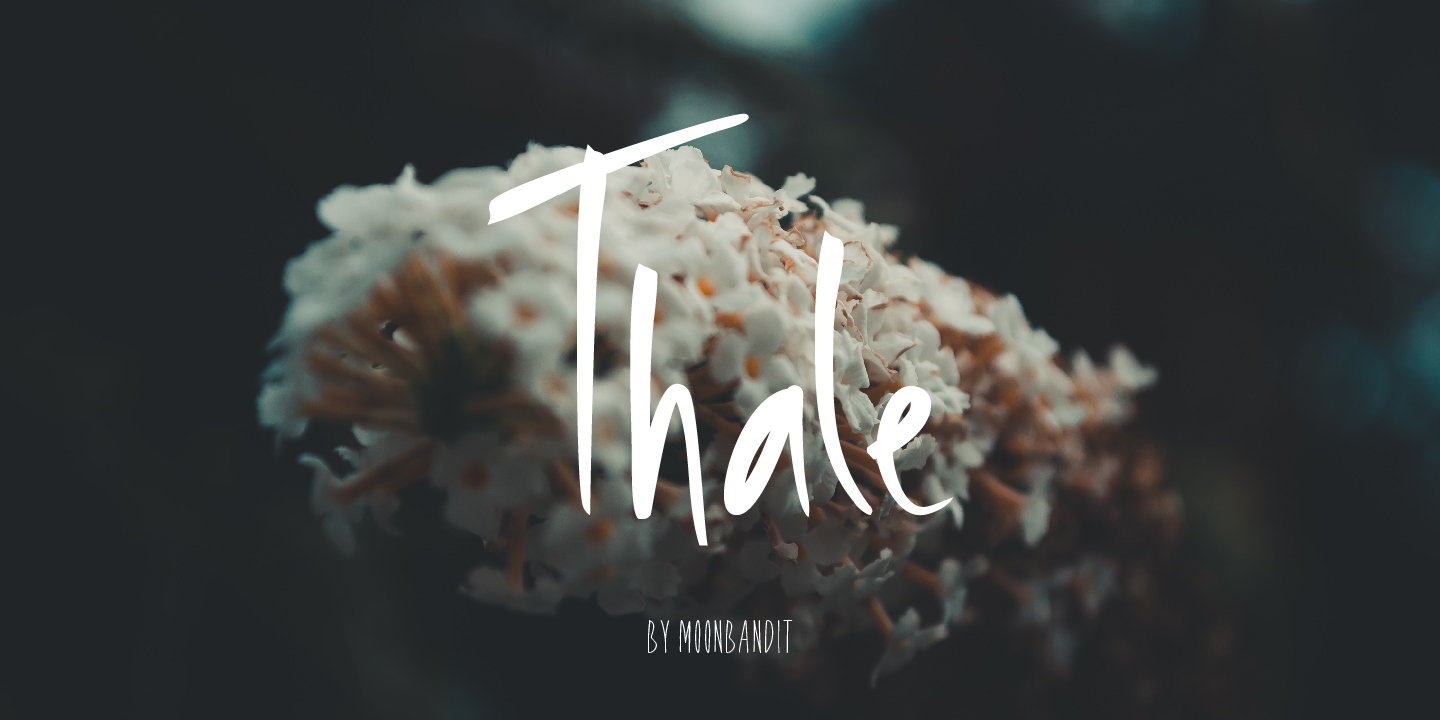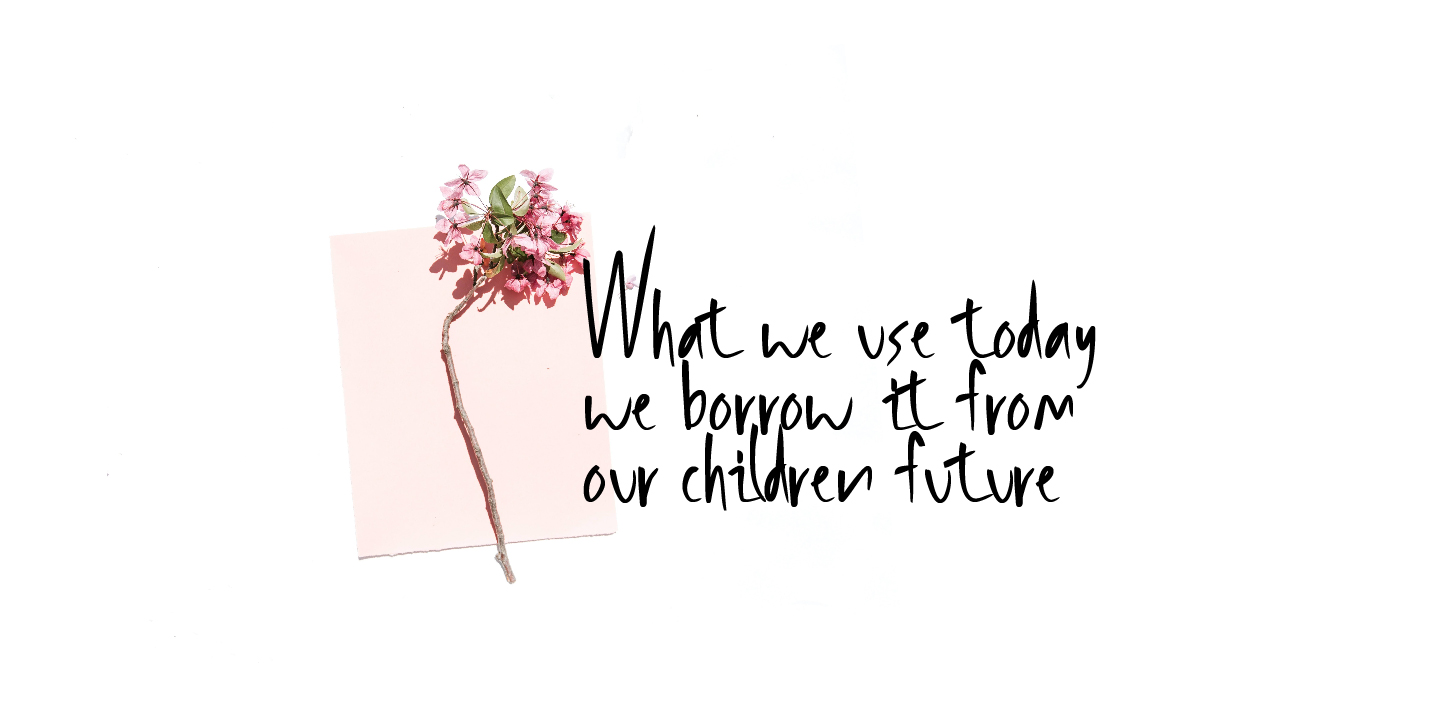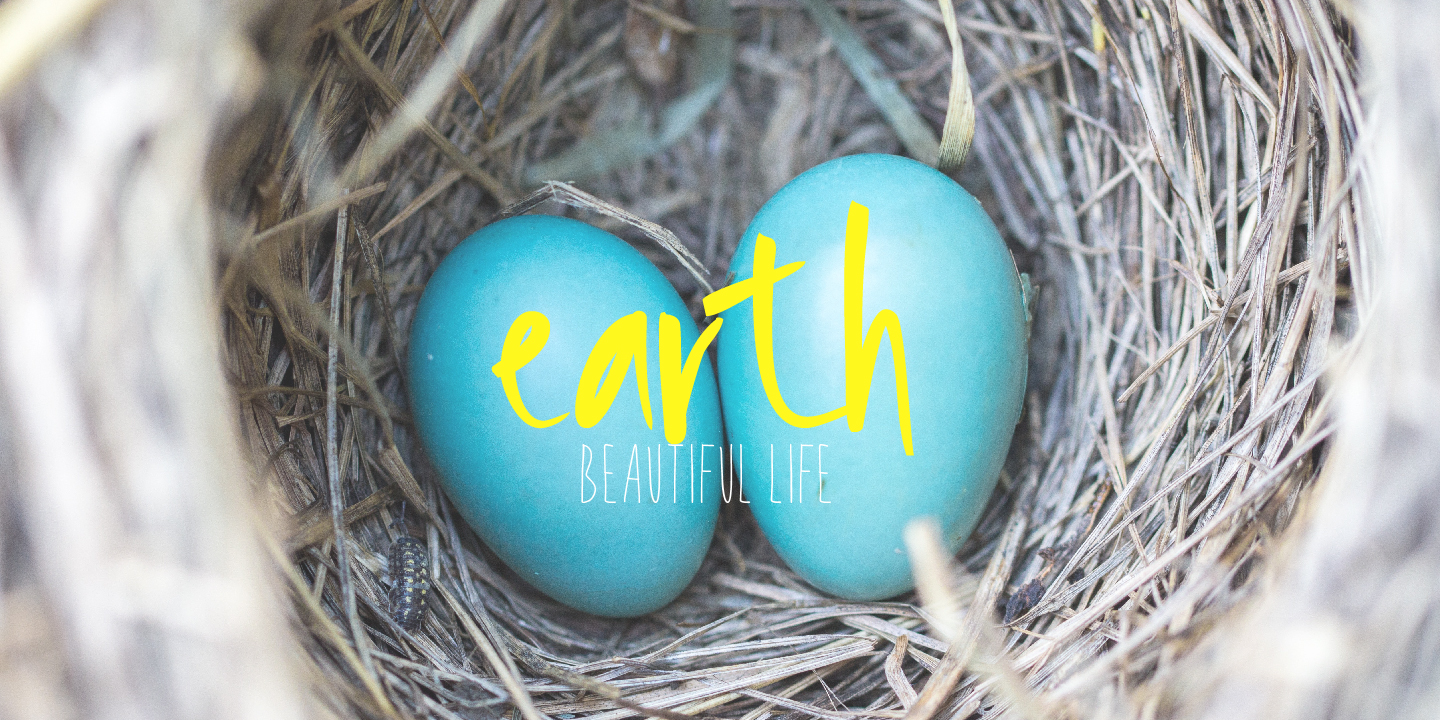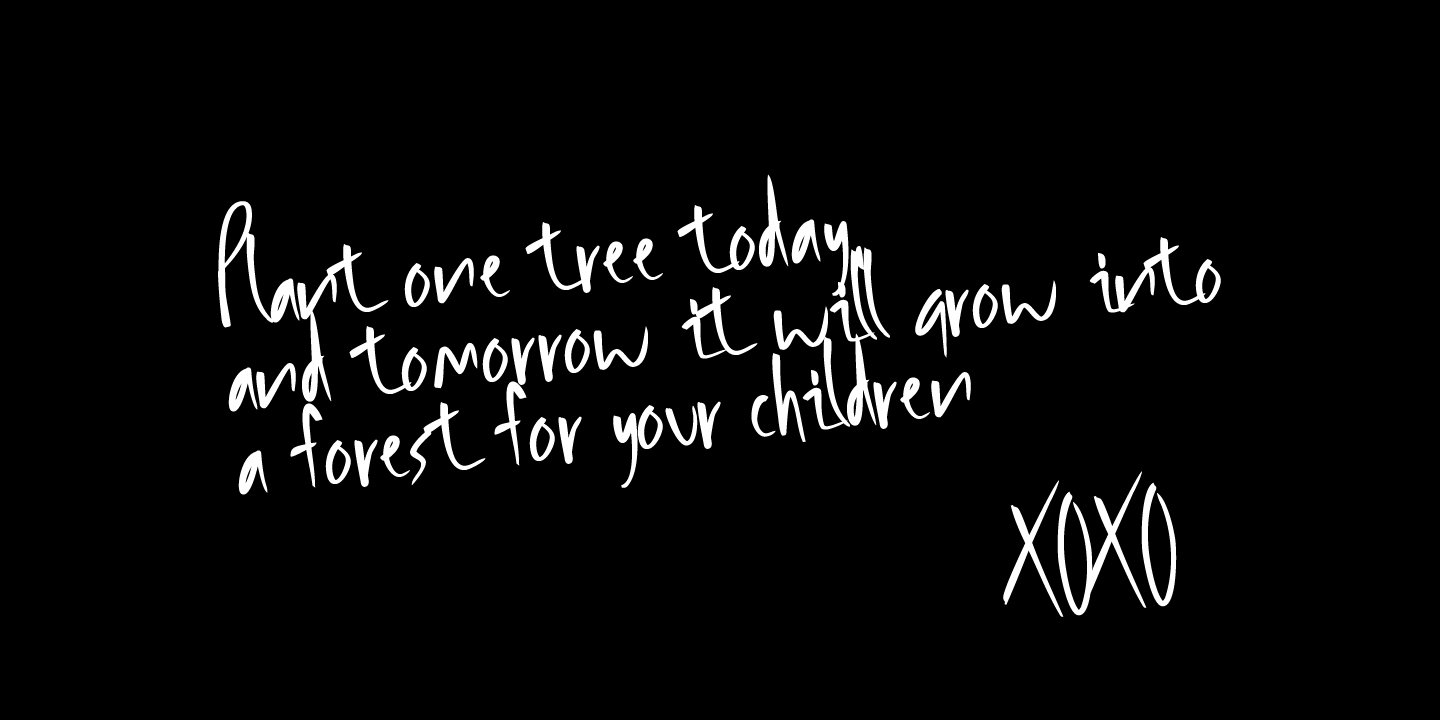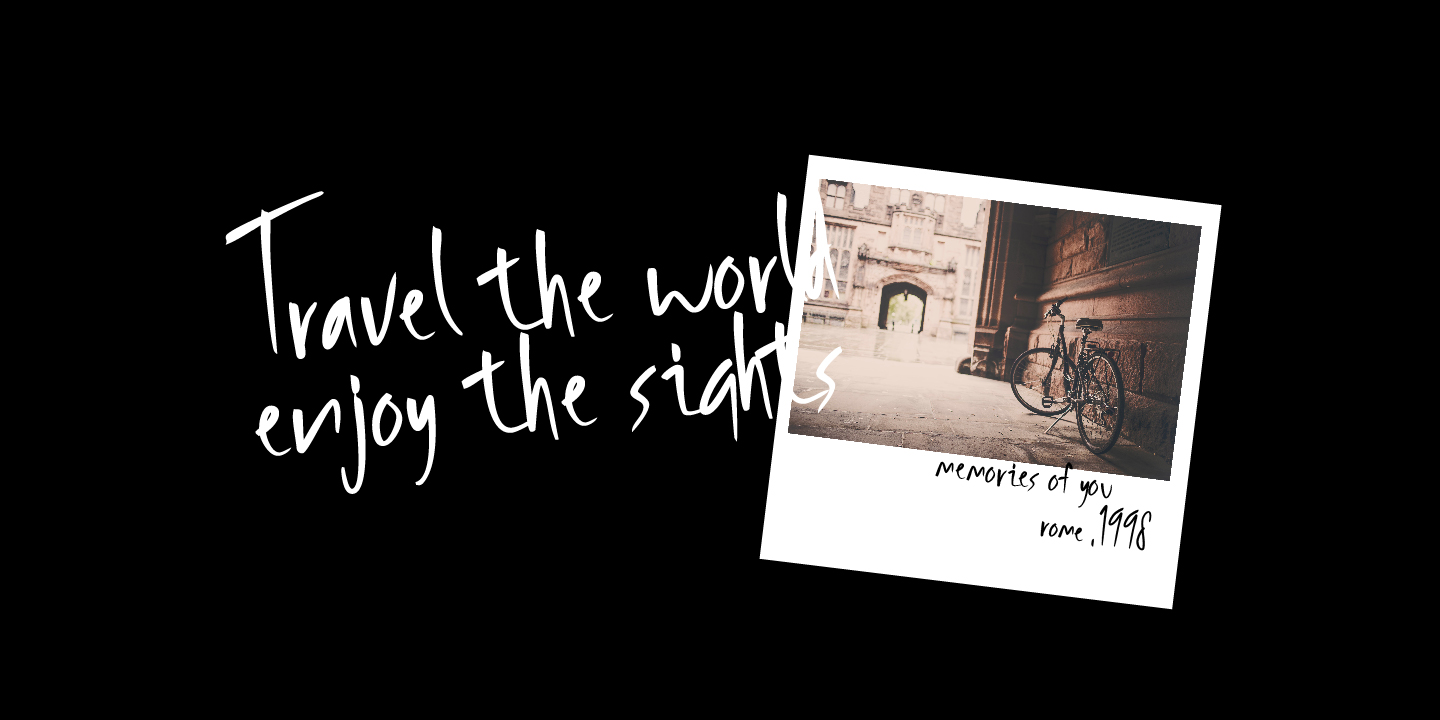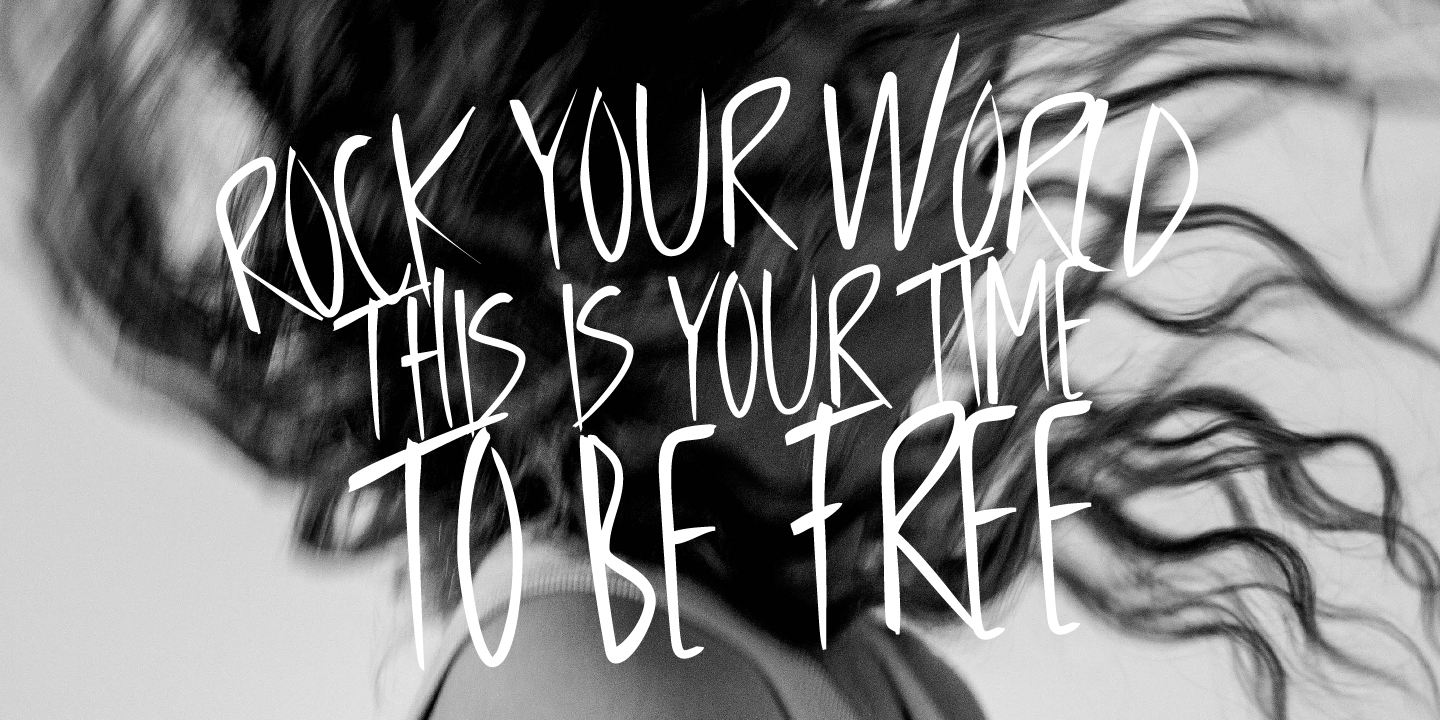
MBF Thale
A modern handwritten script font with an attitude and very versatile. This typeface is perfect if you want to add a personal touch in your projects, it is versatile enough to be used as a rock and roll poster to a valentine’s card.